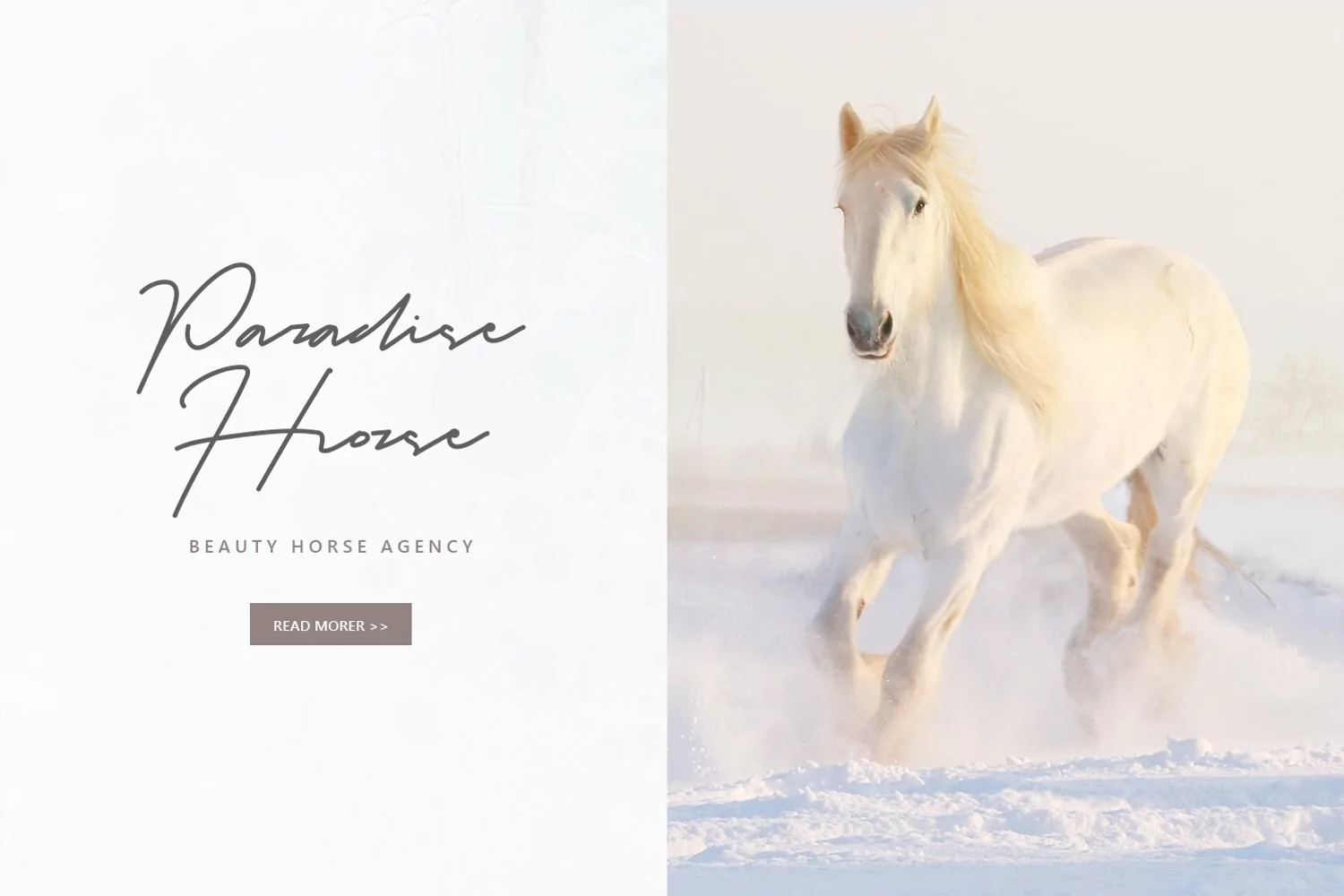
Here's a Quick Way to Get Realistic SignatureHi everyone, this time we will introduce a font that is very suitable for you. This font we make with sincerity and deep thinking. A similar font must be similar to a signature. So do not worry anymore. Because we will give you your desire to get a real signature in this font.